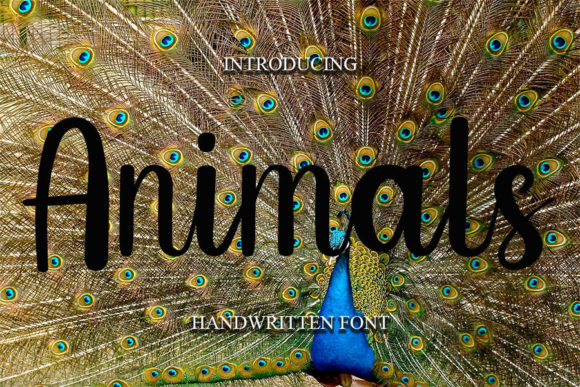
Introducing Animals Font: The Perfect Choice for Romantic and Personalized Designs
Are you a designer or crafter looking for a unique and elegant font to add a touch of personality to your designs? Look no further than Animals Font, a slim and delicate handwritten font that’s perfect for creating romantic and personalized designs. In this article, we’ll take a closer look at Animals Font, its features, and how you can use it to elevate your designs.
What is Animals Font?
Animals Font is a beautiful, handwritten font that’s characterized by its slim and delicate strokes. This font is dainty and joyful, making it an ideal choice for designs that require a romantic and personalized touch. Whether you’re creating wedding invitations, cards, or any other design that needs a special something, Animals Font is the perfect choice.
Key Features of Animals Font
So, what makes Animals Font so special? Here are some of its key features:
- Slim and delicate strokes: Animals Font features slim and delicate strokes that give it a elegant and refined look.
- Handwritten feel: This font has a beautiful, handwritten feel that’s perfect for creating personalized designs.
- Dainty and joyful: Animals Font is dainty and joyful, making it an ideal choice for designs that require a romantic and whimsical touch.
- Versatile: This font is versatile and can be used for a variety of designs, from wedding invitations to cards and more.
Use Cases for Animals Font
So, how can you use Animals Font in your designs? Here are some use cases to get you started:
- Wedding invitations: Animals Font is perfect for creating beautiful and elegant wedding invitations that set the tone for the big day.
- Cards: Whether you’re creating birthday cards, anniversary cards, or any other type of card, Animals Font is a great choice.
- Stationery: Add a touch of elegance to your stationery with Animals Font, perfect for creating personalized notebooks, journals, and more.
- Branding: This font can also be used for branding, particularly for businesses that want to convey a sense of elegance and sophistication.
Tips for Using Animals Font
Here are some tips for using Animals Font in your designs:
- Pair with other fonts: Animals Font pairs well with other fonts, particularly sans-serif fonts. Experiment with different combinations to find the perfect look.
- Use for headings and titles: This font is perfect for headings and titles, adding a touch of elegance and sophistication to your designs.
- Experiment with colors: Animals Font looks great in a variety of colors, from soft pastels to bold and bright hues. Experiment with different colors to find the perfect look.
In conclusion, Animals Font is a beautiful and elegant handwritten font that’s perfect for creating romantic and personalized designs. With its slim and delicate strokes, handwritten feel, and dainty and joyful aesthetic, this font is ideal for designers and crafters looking to add a touch of personality to their designs. Whether you’re creating wedding invitations, cards, or any other design, Animals Font is a great choice. So why not give it a try and see how it can elevate your designs?
With its versatility, elegance, and whimsy, Animals Font is sure to become a favorite in your design arsenal. So go ahead, get creative, and see what amazing designs you can create with Animals Font!